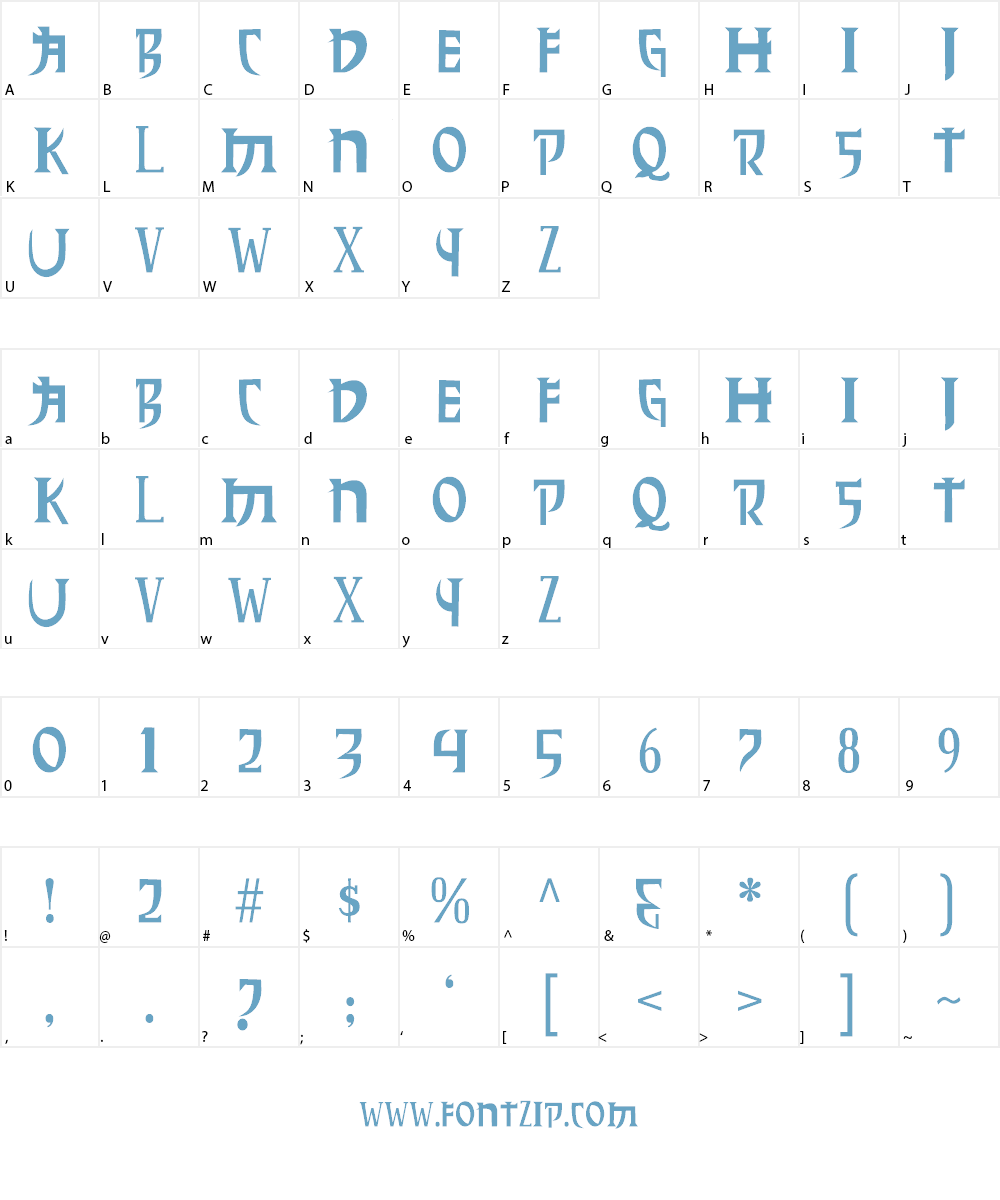
MSMM Bet Set is influenced by the lettering of the logo of Puella Magi Madoka Magica The Movie: Beginnings and Eternal.
This font was modelled off from the font Eurphogenic.